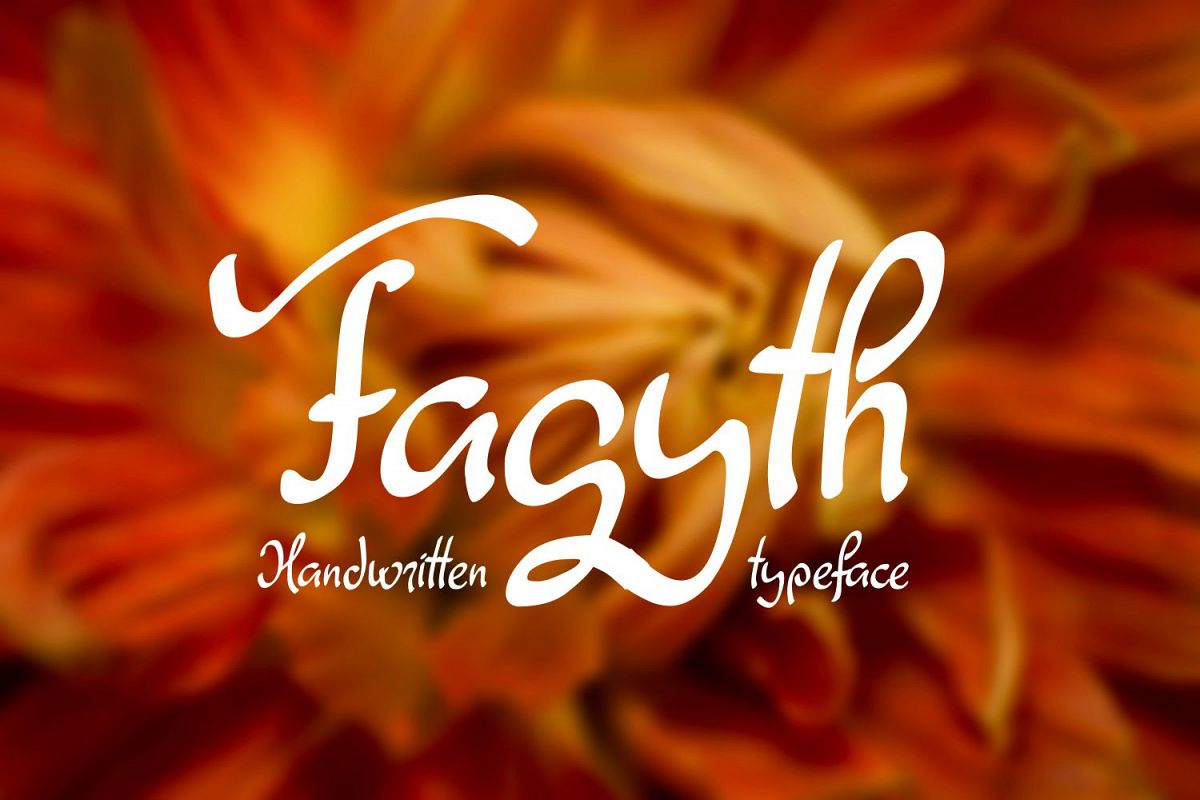
Fagyth Font
Fagyth
Introducing Fagyth handwritten typeface.
This font is a great way to give some personality to your designs and useful at many craft area such as stencils, engraving, laser cutting and more!